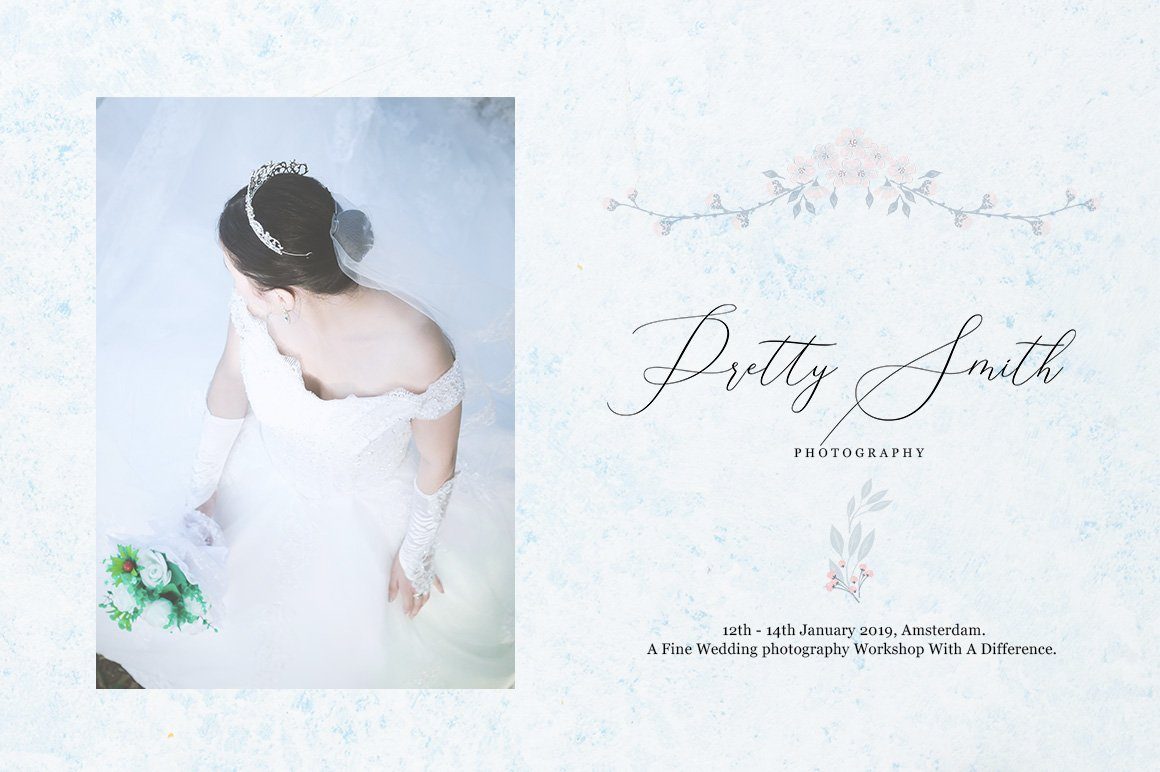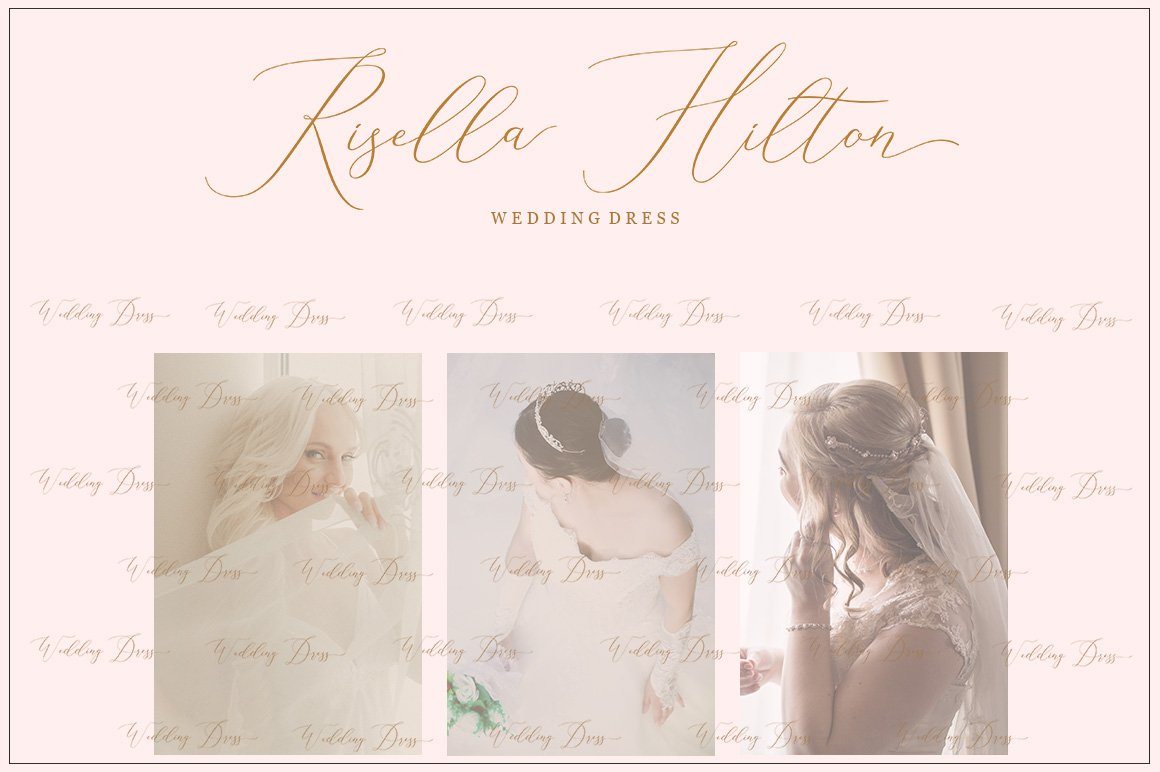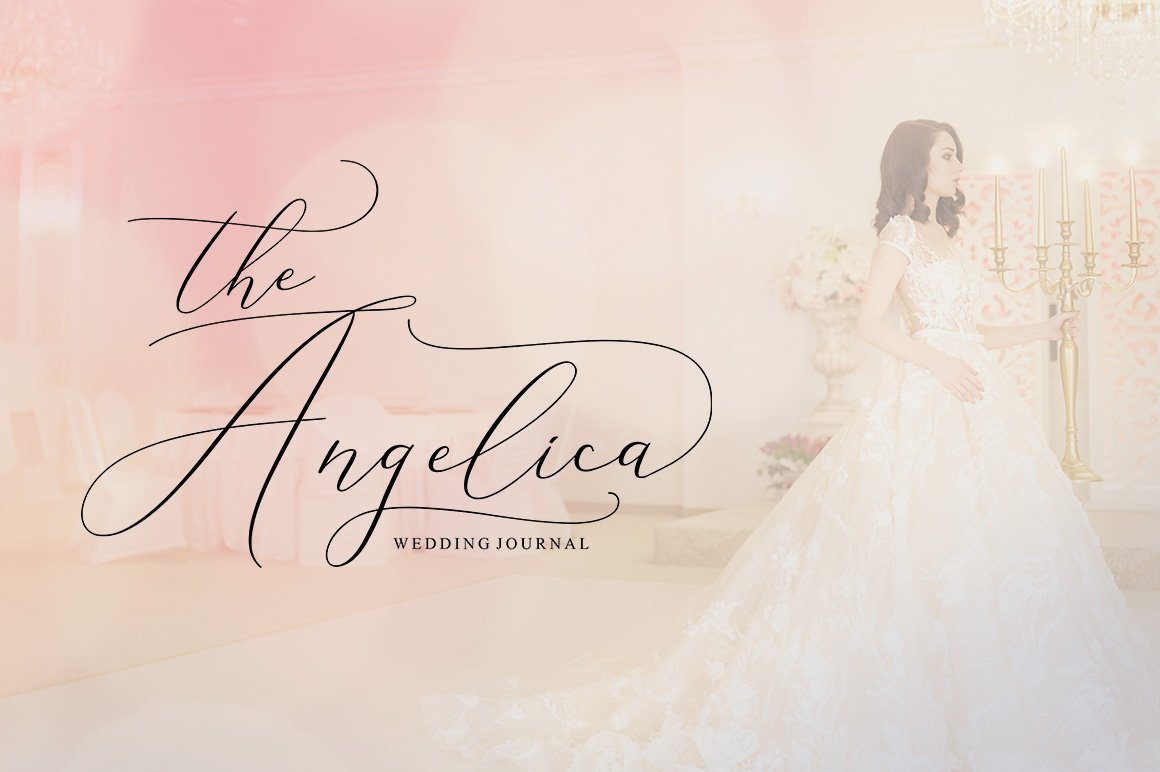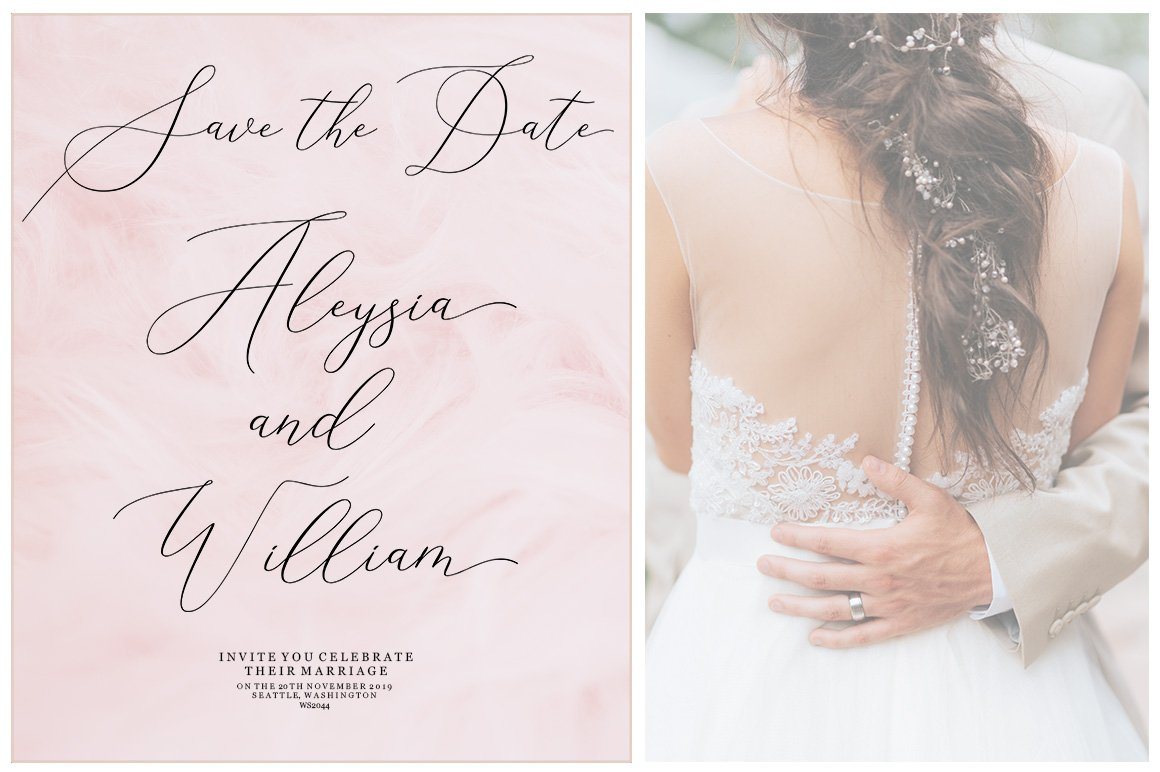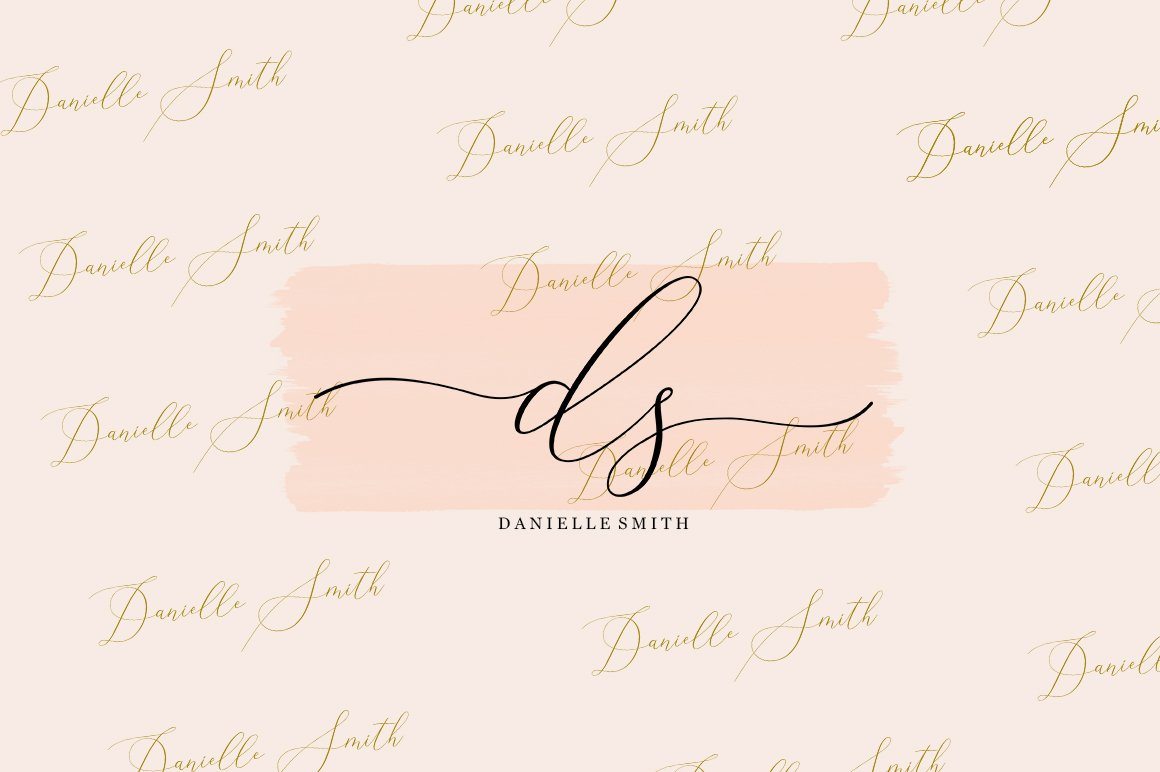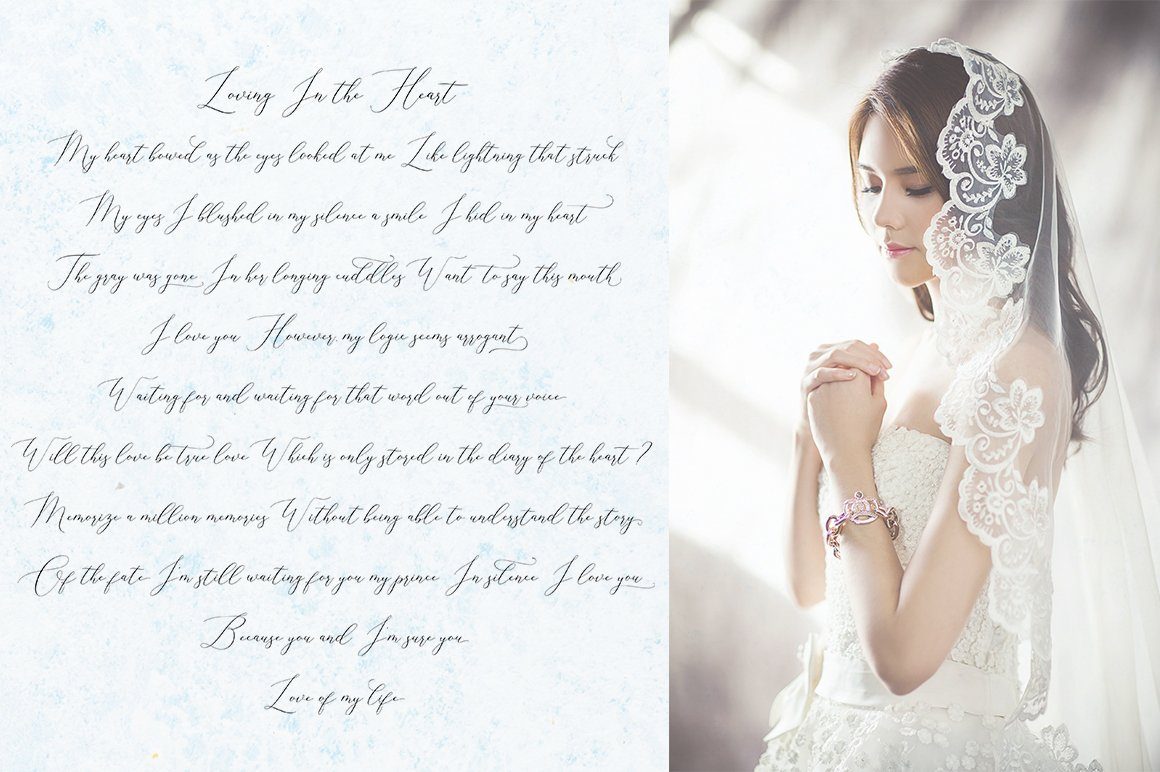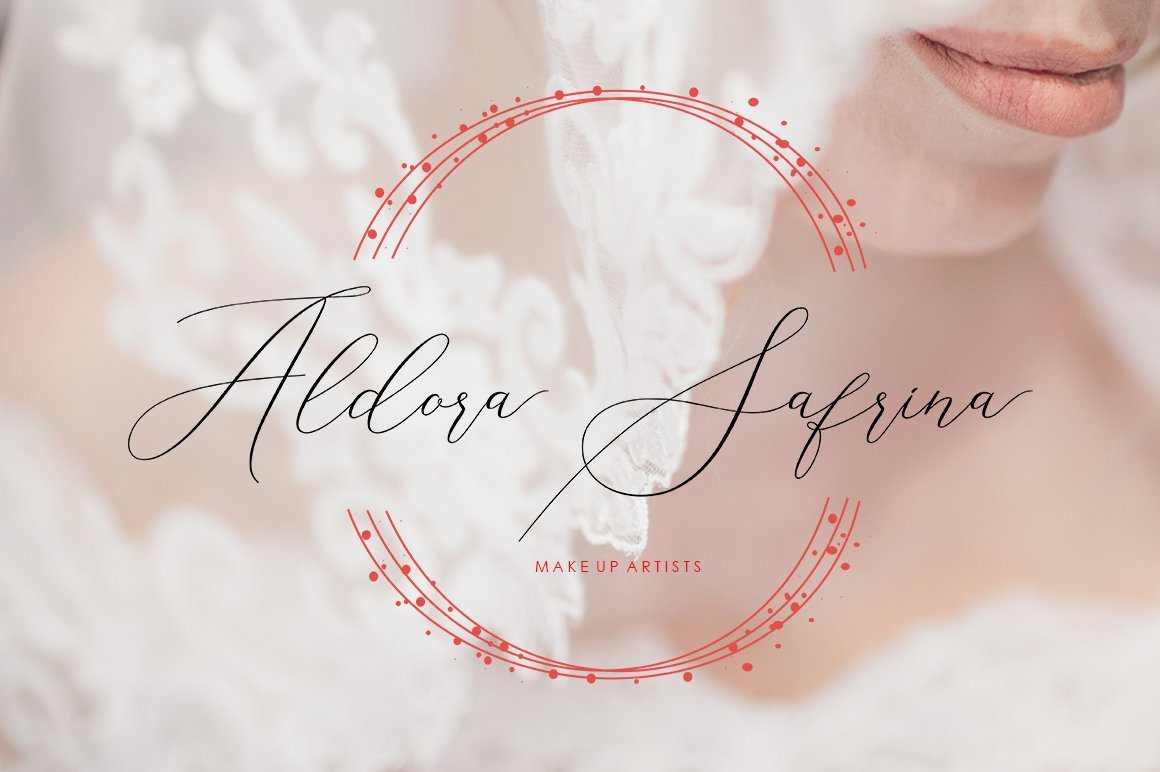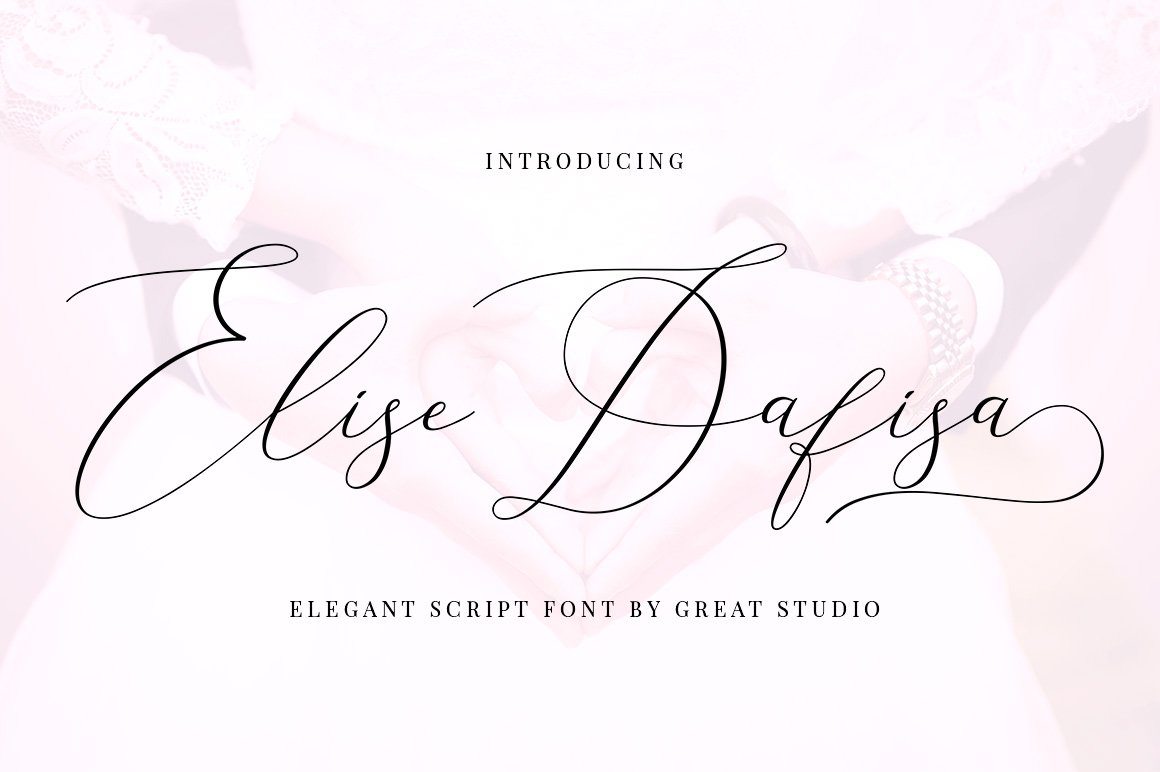
Elise Dafisa – Elegant Script Font
Elise Dafisa is a modern calligraphy font with classic, sophisticated accents. It is perfect for branding, wedding invites and cards. Elise Dafisa includes full set of lovely uppercase and lowercase letters, multilingual symbols, numerals, punctuation and ligatures. All lowercase letters include beautiful and unique (each letter has own ‘unpatterned’ ending) beginning and ending swashes. Also, includes following multilingual symbols WHAT’S INCLUDED : Elise Dafisa.otf Elise Dafisa.ttf SOFTWARE REQUIREMENTS : The fonts can be opened and used in any software that can read standard fonts – even MS Word. No special software is required , and a friendly little help file is included to get you started 🙂 For folks who DO have opentype capable software : The alternates are accessible by turning on ‘Stylistic Alternates’ and ‘Ligatures’ buttons on in Photoshop’s Character panel, or via any software with a glyphs panel, e.g. Adobe Illustrator, Photoshop CC, Inkscape. How to access alternate glyphs? you can see it on this link ( http://goo.gl/1vy2fv ) If you have any question, don’t hesitate to contact me by Email